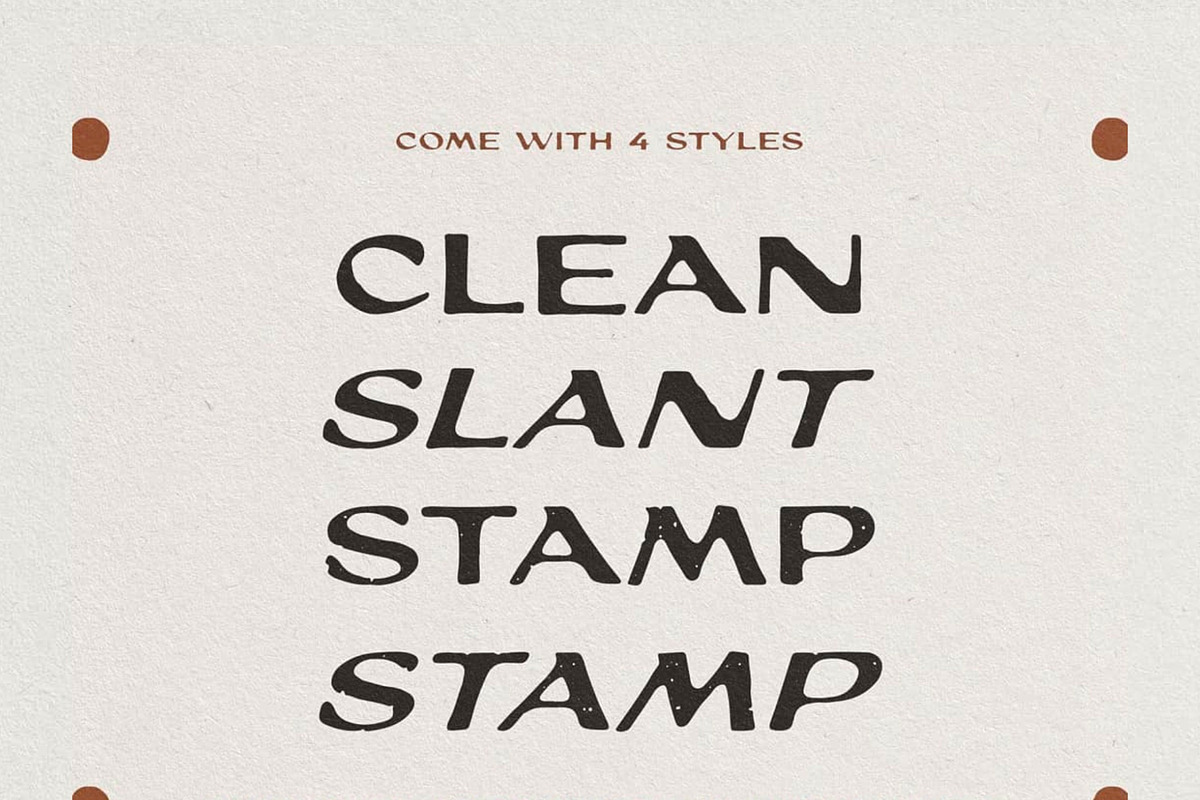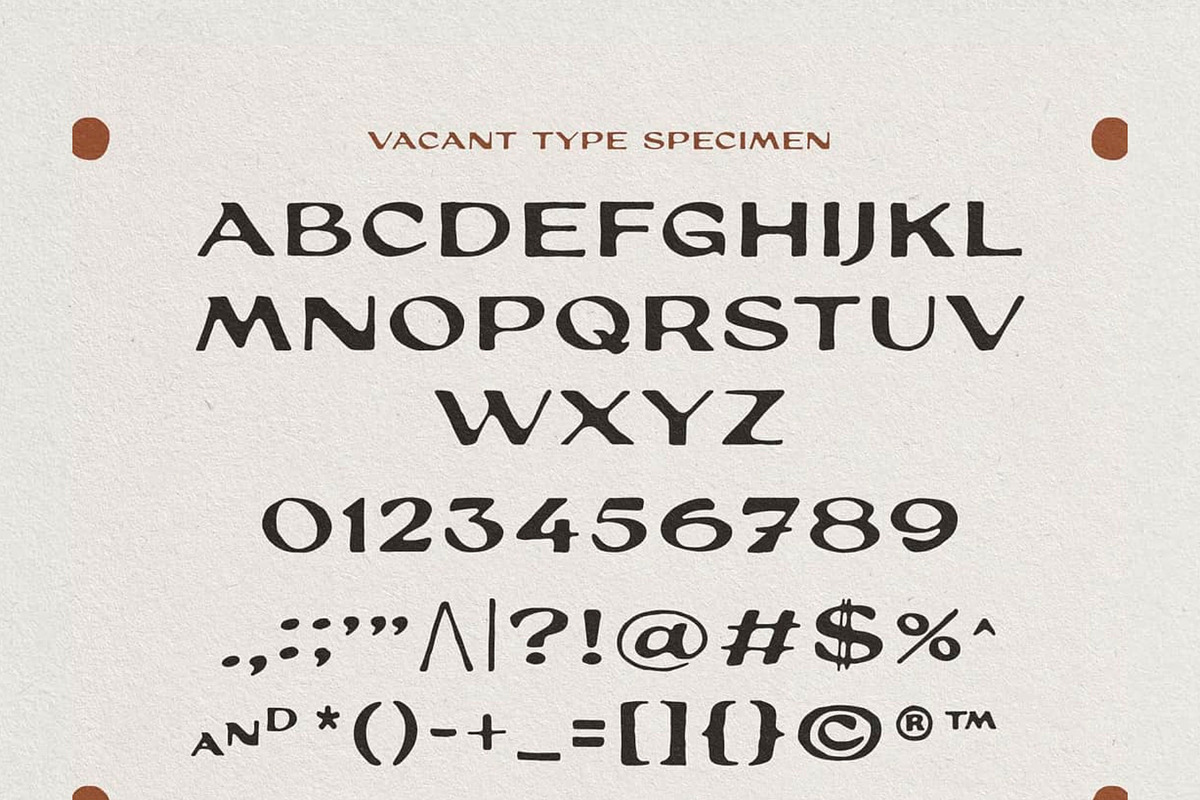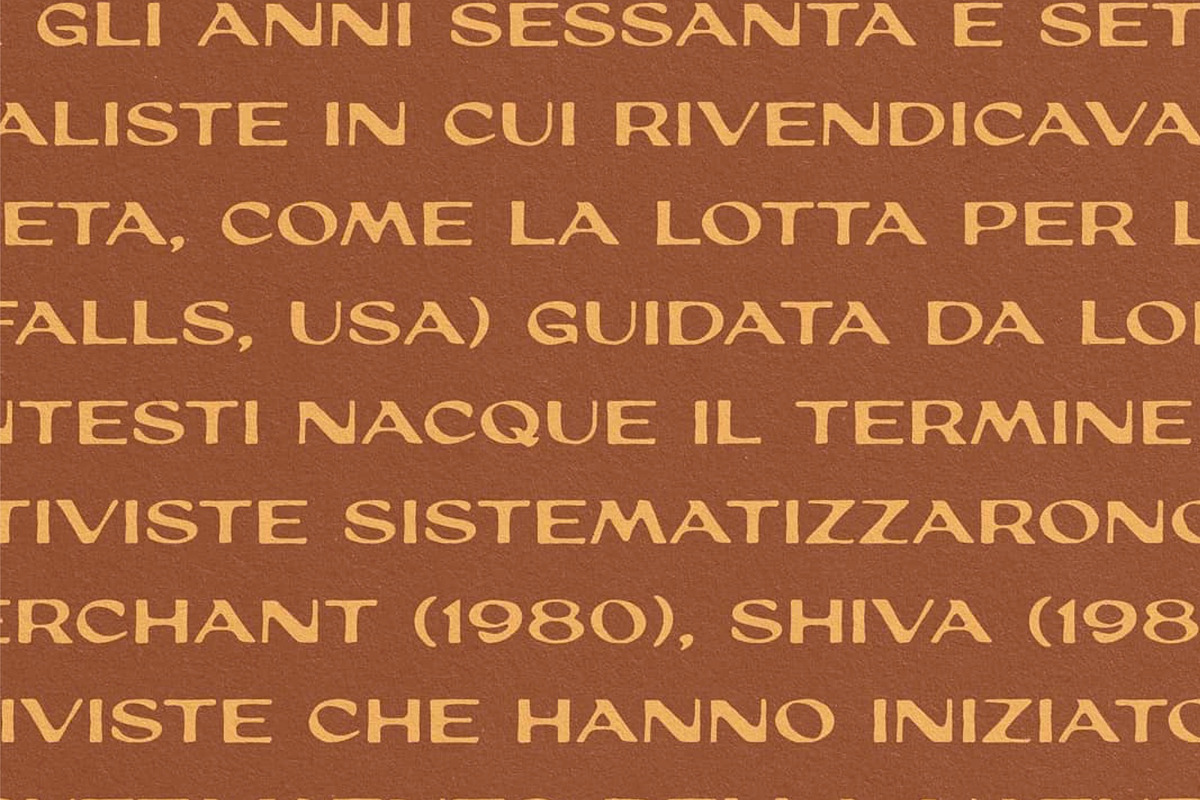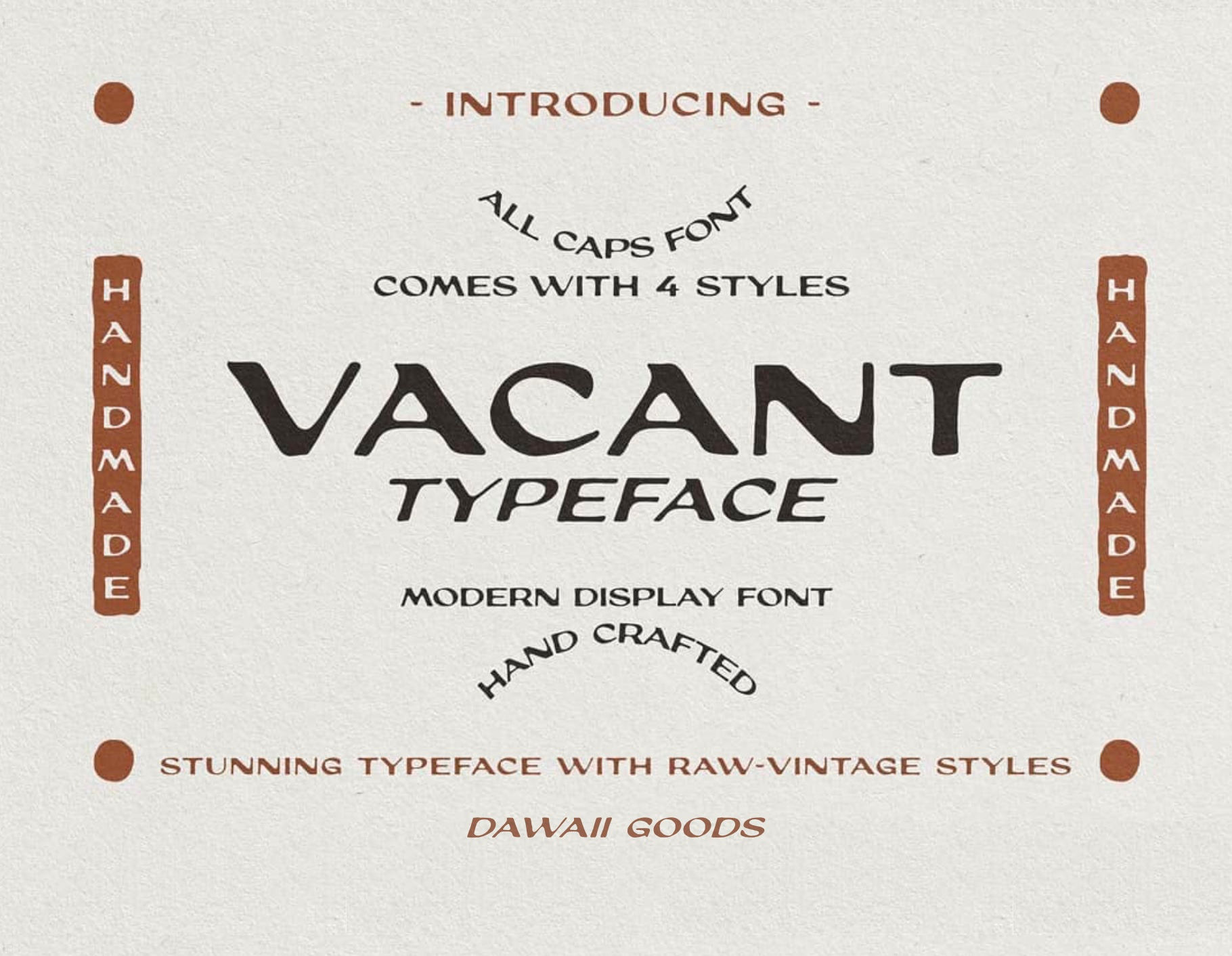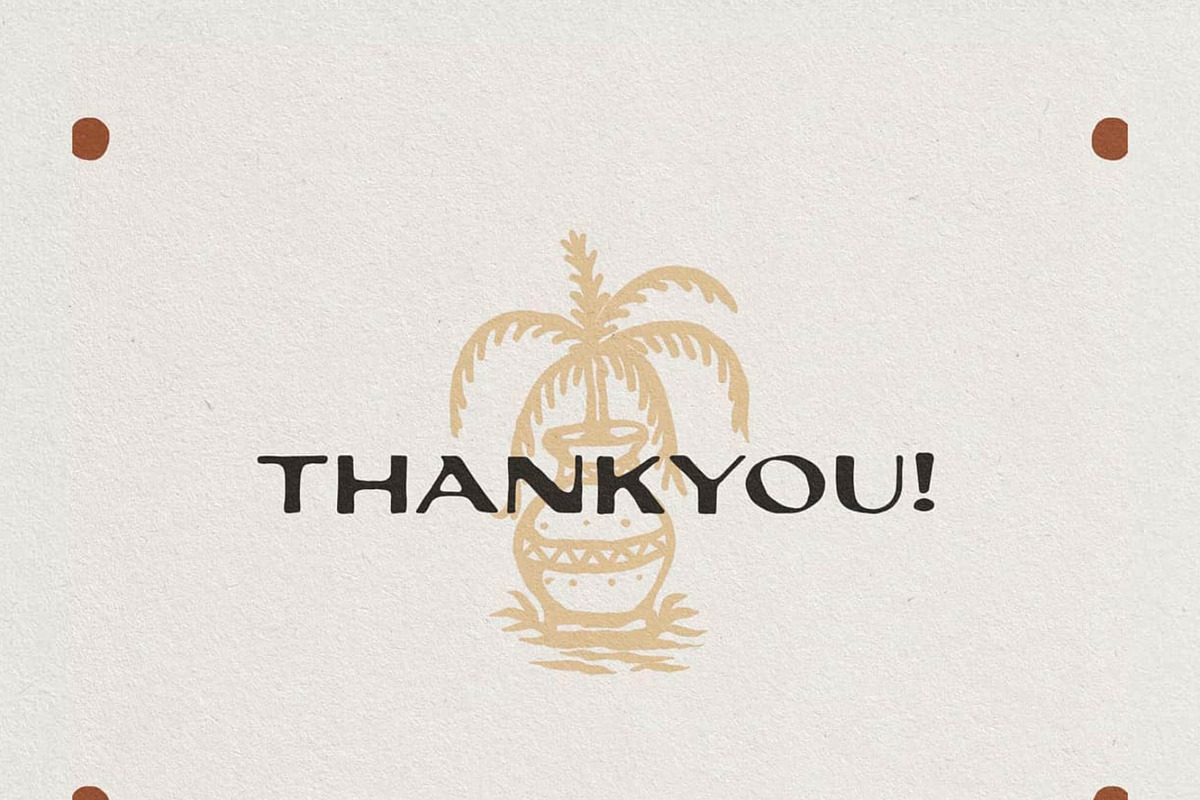
Vacant Typeface
Introducing VACANT TYPEFACE
Vacant Typeface inspired by vintage sign font display with a simplify distressed effect. Comes with 4 style : Clean , Slant , Stamp and Slant Stamp . Its suitable for your branding ,design, badges, sign, and vintage look what you looking for.